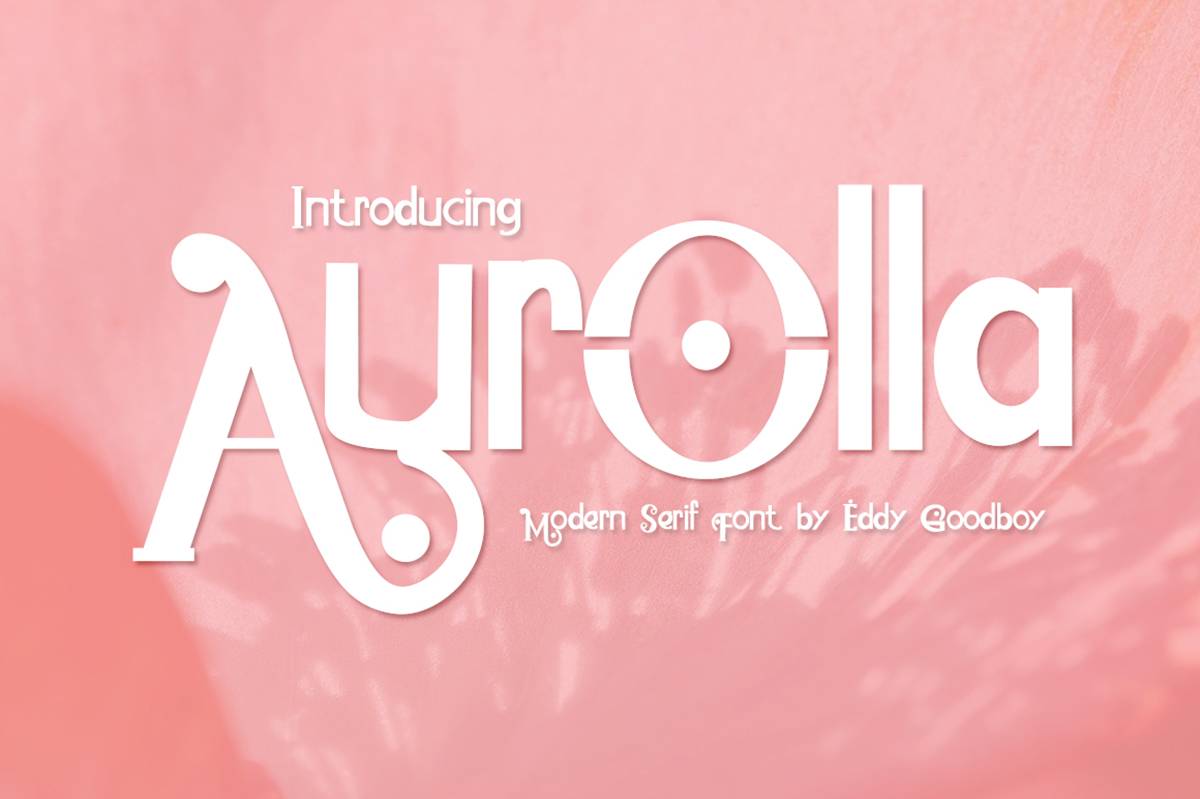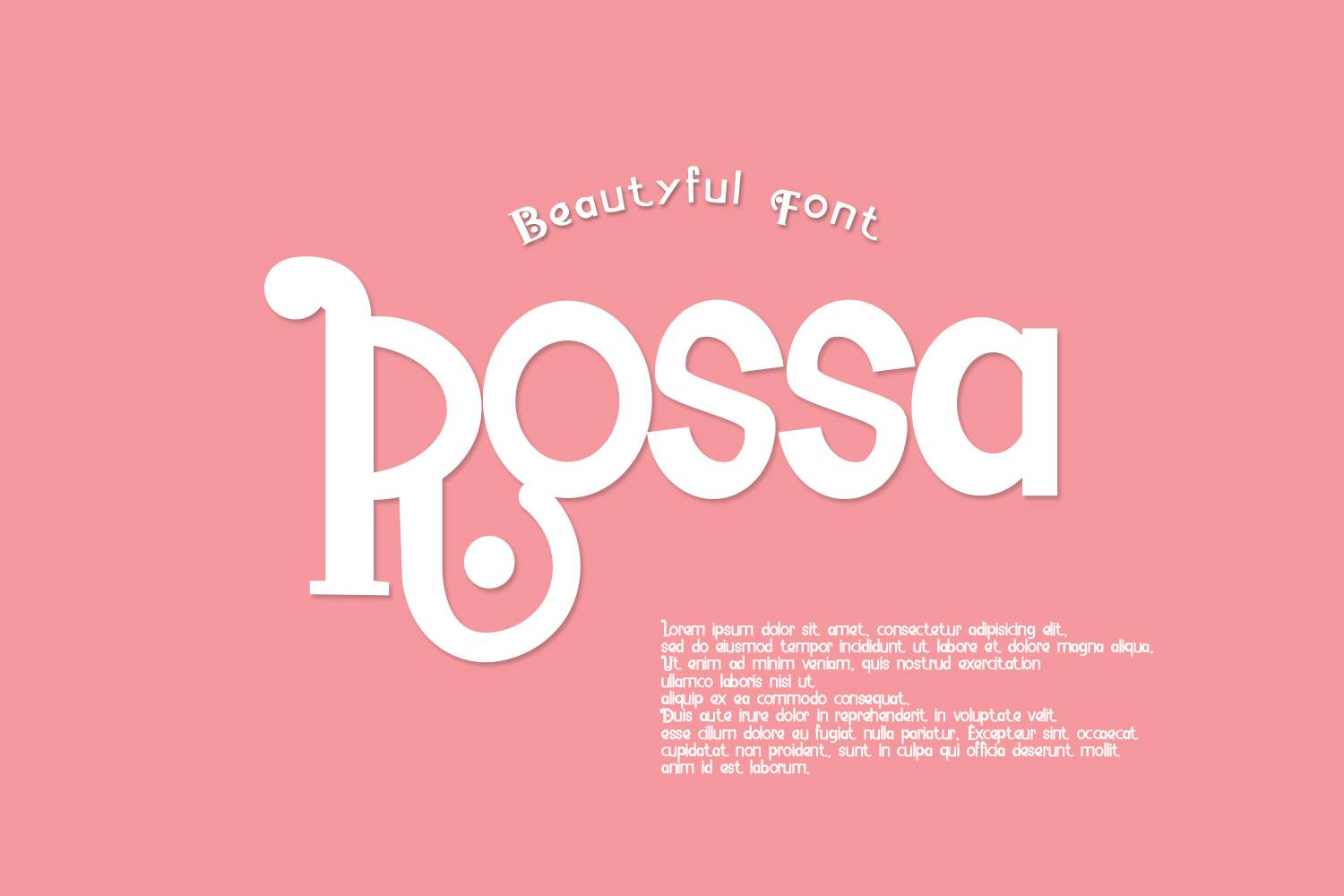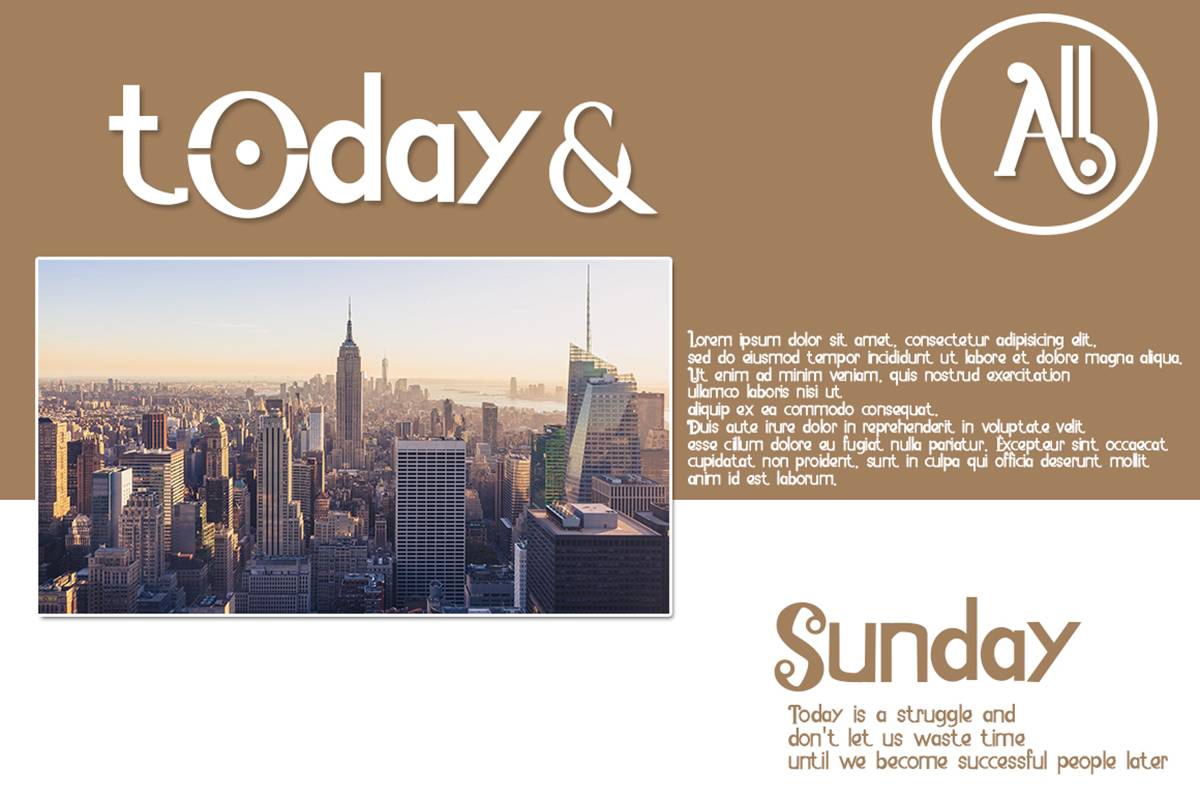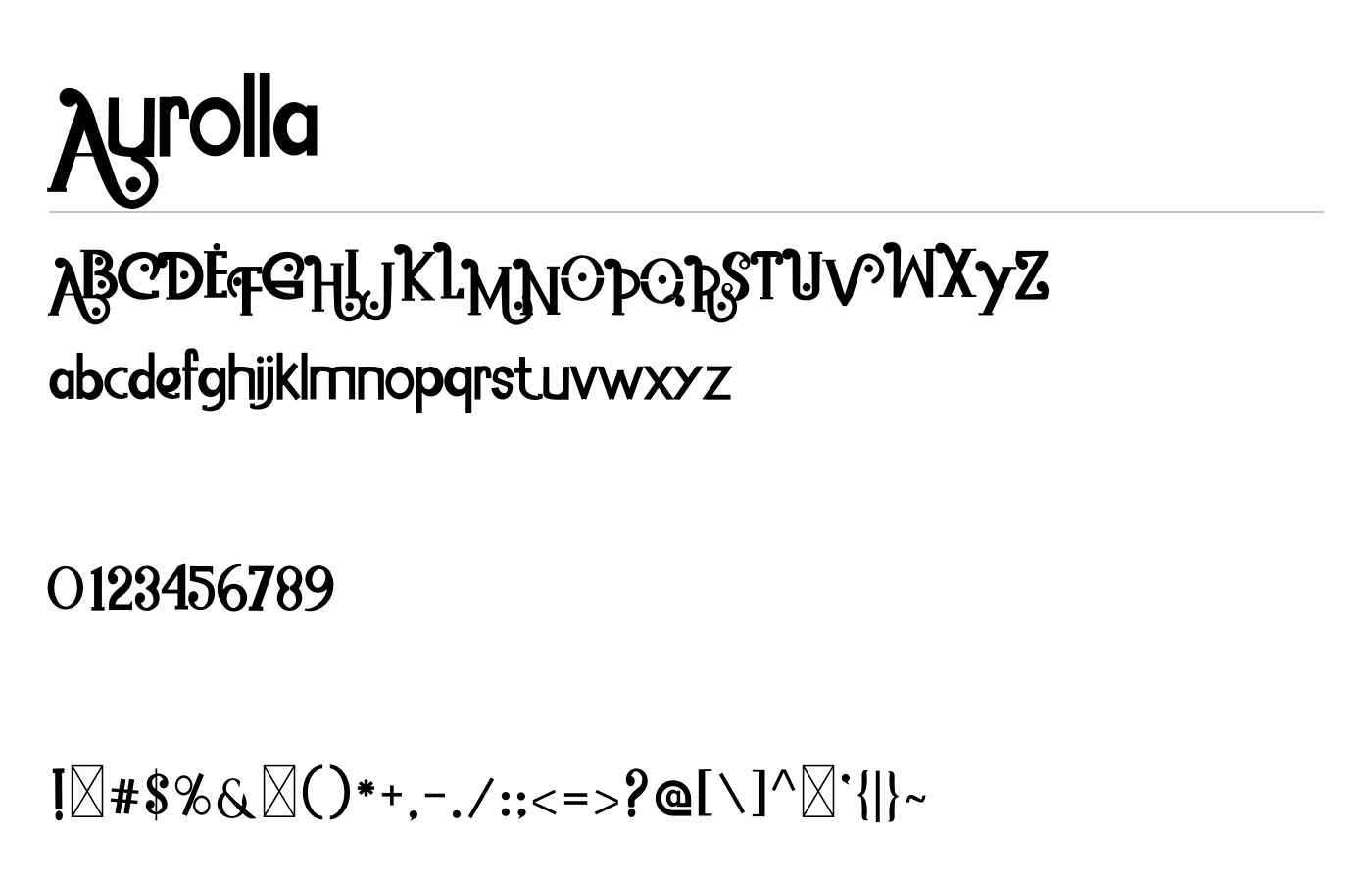
Aurolla is a unique serif typeface with whimsical, decorative flourishes that give its uppercase letters a playful and artistic feel, while the lowercase remains simpler and more geometric. Its moderate contrast and tall x-height balance flair with readability, making it ideal for creative branding, headlines, or editorial use where a distinctive vintage-inspired yet modern personality is desired. This font works best in contexts that seek to stand out with elegance and charm, such as fashion, packaging, or eye-catching display text.
Aurolla Font
About Aurolla Font
| Designer | Nur Edi Prayitno |